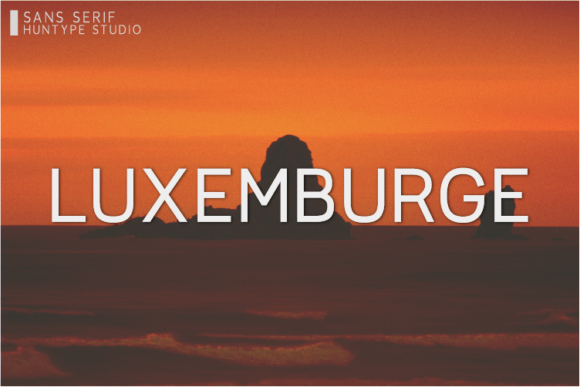
Introducing the Luxemburge Font: A Touch of Modern Sophistication for Your Creative Vision
In the realm of typography, where words take flight and designs come alive, Luxemburge Font emerges as a captivating force, a font family that exudes modernity, simplicity, and boundless versatility. Crafted by the talented hands of Huntype, Luxemburge is a sans serif masterpiece that beckons you to embrace the art of expression with grace and poise.
Step into the world of Luxemburge, where smooth, clean lines intertwine with a touch of elegant contrast, creating a typeface that transcends the mundane and invites you to embark on a journey of creative exploration. Its effortless readability and stunning aesthetics make Luxemburge the perfect choice for those seeking a font that seamlessly adapts to a wide range of design applications.
From the sleek minimalism of logos to the bold impact of branding campaigns, Luxemburge effortlessly elevates your designs, imbuing them with a touch of sophistication and timeless appeal. Its versatility extends beyond the digital realm, gracing web headings with its clean and crisp appearance, making every word carry weight and meaning.
As you delve into the depths of Luxemburge's character set, you'll discover a symphony of style and functionality, each glyph carefully crafted to enhance the impact of your message. Its tall ascenders and low descenders create a sense of rhythm and movement, drawing the eye through your text with effortless grace.
Luxemburge's versatility knows no bounds, seamlessly adapting to the ever-evolving world of design. Use it as a captivating centerpiece for posters and flyers, breathe life into presentations with its crisp and legible forms, or let it shine as the hero of your social media campaigns, where every word carries weight and impact.
With Luxemburge Font, your designs will transcend the ordinary and embark on a journey of remarkable storytelling. Its modern charm and undeniable elegance make it the perfect companion for businesses seeking a font that embodies professionalism, innovation, and timeless appeal.
Embrace the power of Luxemburge, and watch as your creative vision takes flight, capturing the attention of your audience with every stroke and every letter. Dive into the world of this remarkable sans serif font today and experience the transformative power of typography.